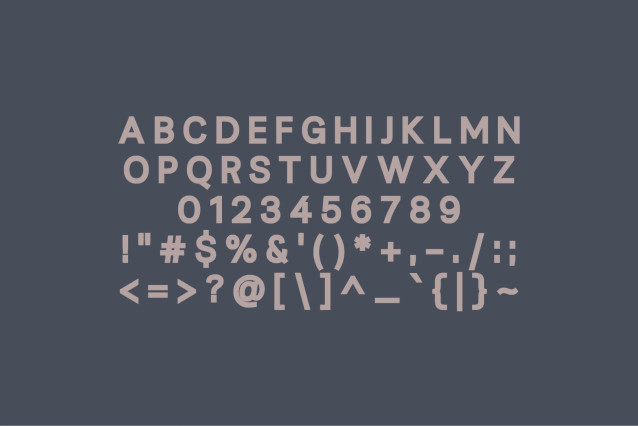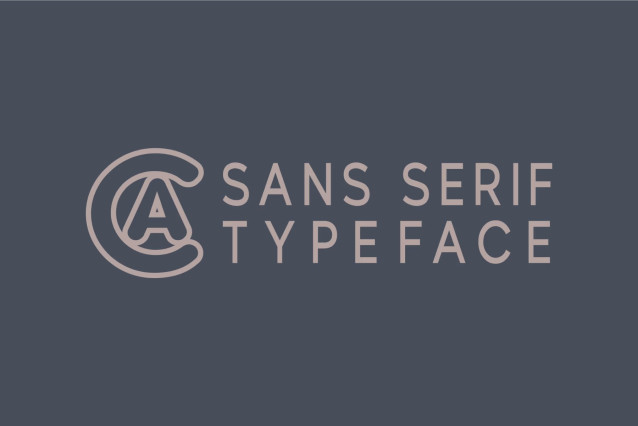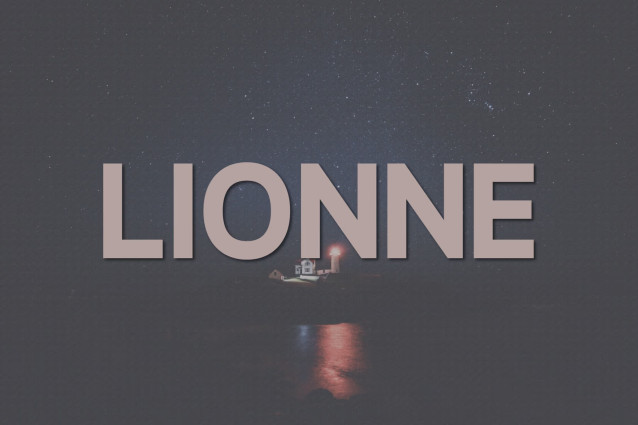
Lionne Font
Introducing Lionne, a modern, classy sans serif typeface. A sans serif typeface that contains upper characters, number 0-9 and a range of punctuation and symbols. An extremely versatile font, perfect for logos, weddings, invitations, quotes, advertisements, print, magazines, and more!